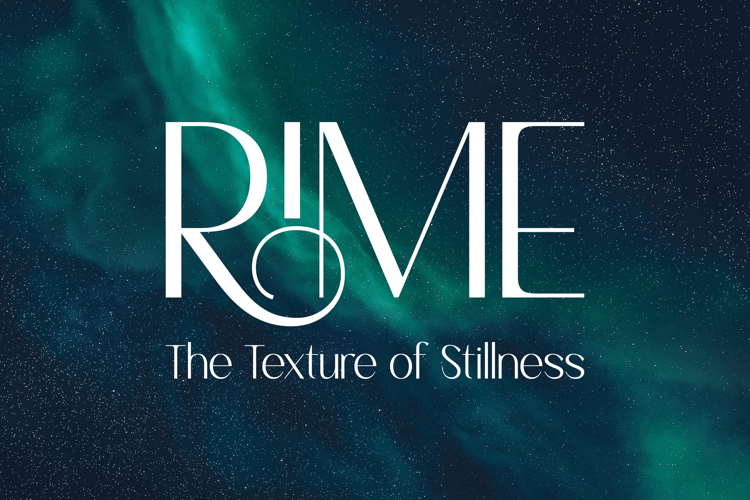
Brigila Font
Brigila represents the intersection of classical serif elegance and modern minimalist design. The typeface is characterized by extreme contrast, making it a perfect choice for display heavy environments like wedding stationery, jewelry branding, and high-end lifestyle magazines.